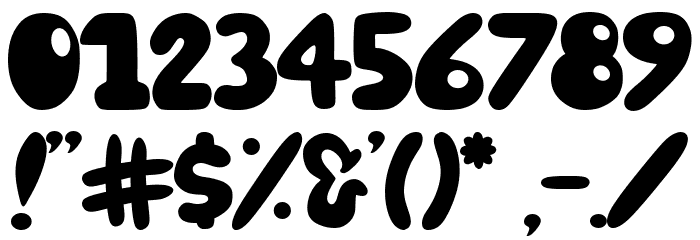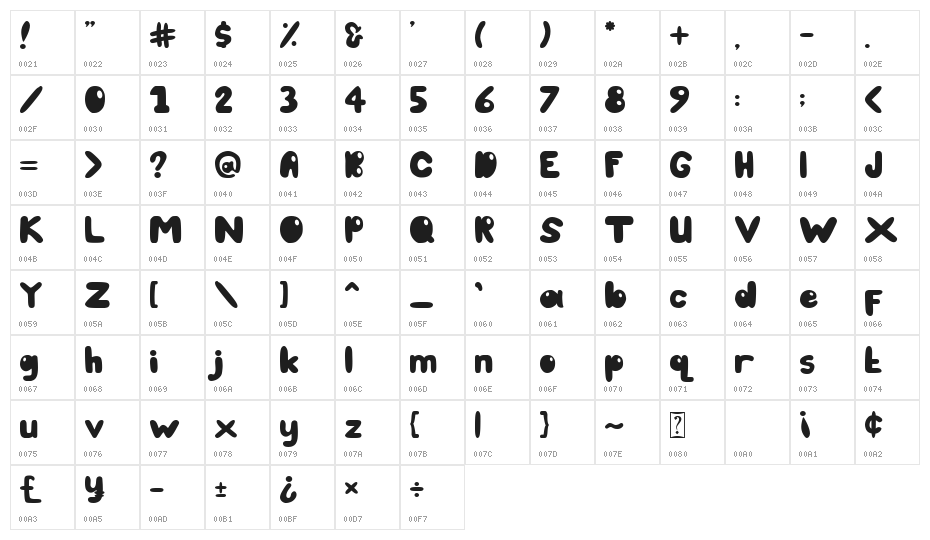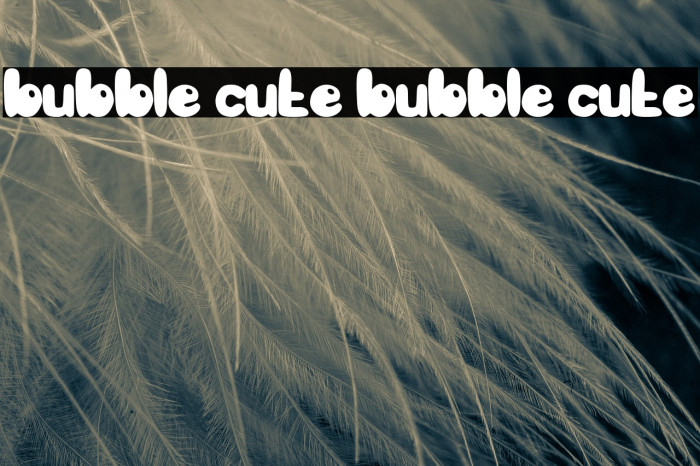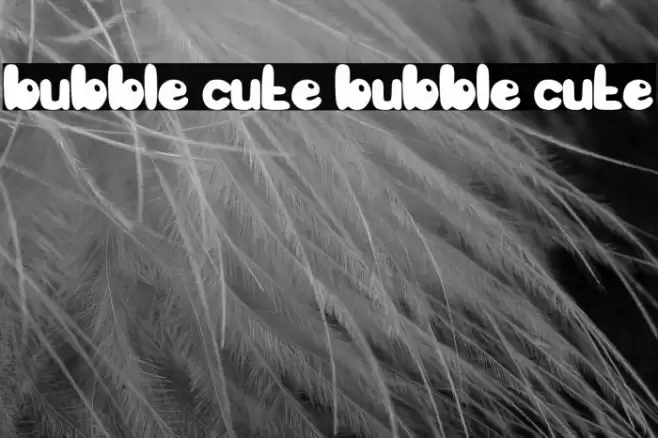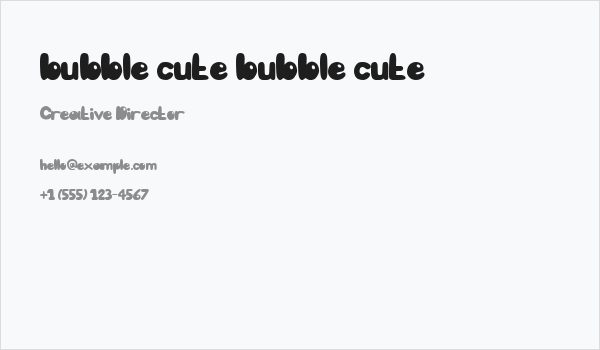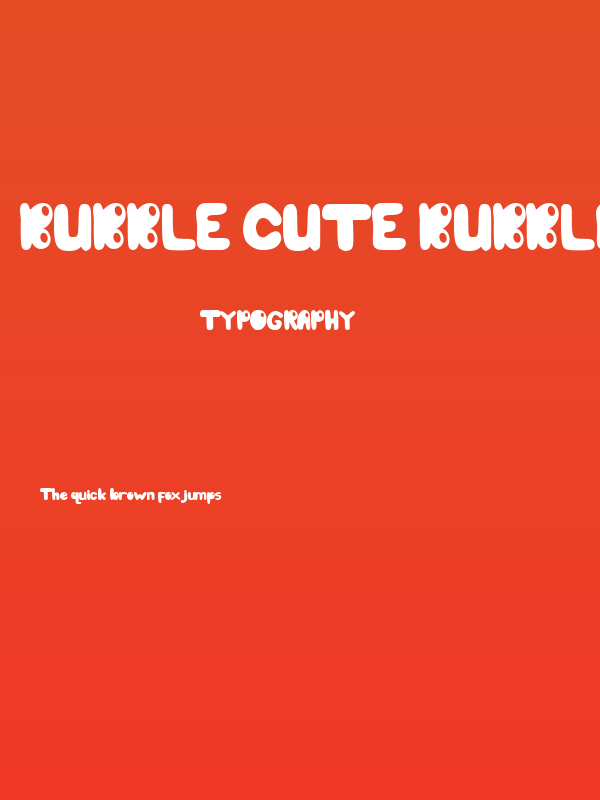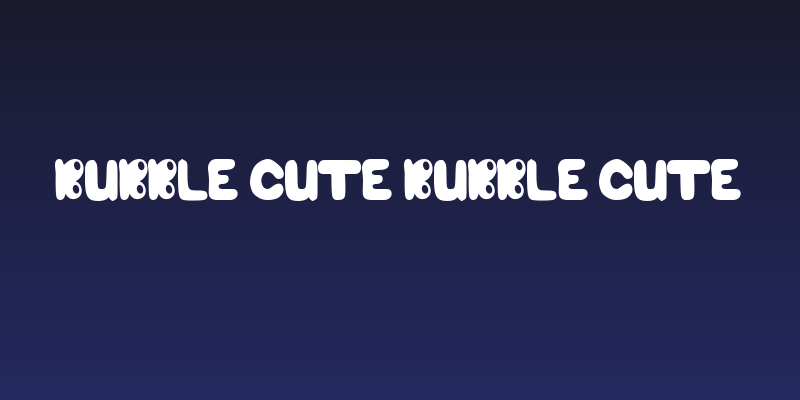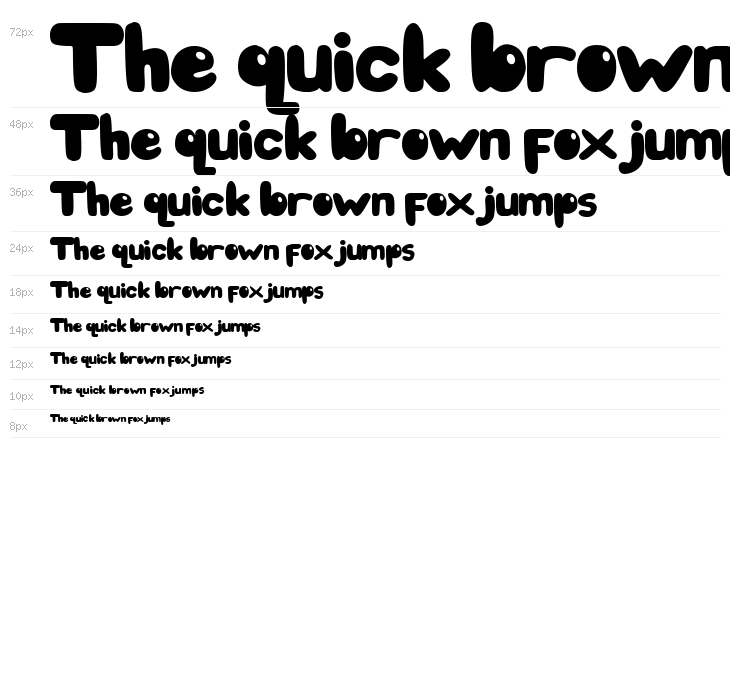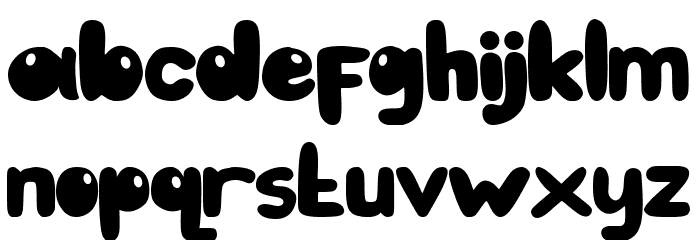
bubble cute Font
bubble cute Description
This playful and whimsical font features bold, rounded characters that resemble bubbles, giving it a fun and lighthearted appearance. The letters are uniformly thick, with a consistent stroke width that enhances its bubbly aesthetic. The uppercase and lowercase letters maintain a cohesive style, while the numbers and special characters are designed to match the overall playful theme. Its unique style makes it stand out, perfect for projects that require a touch of creativity and joy.